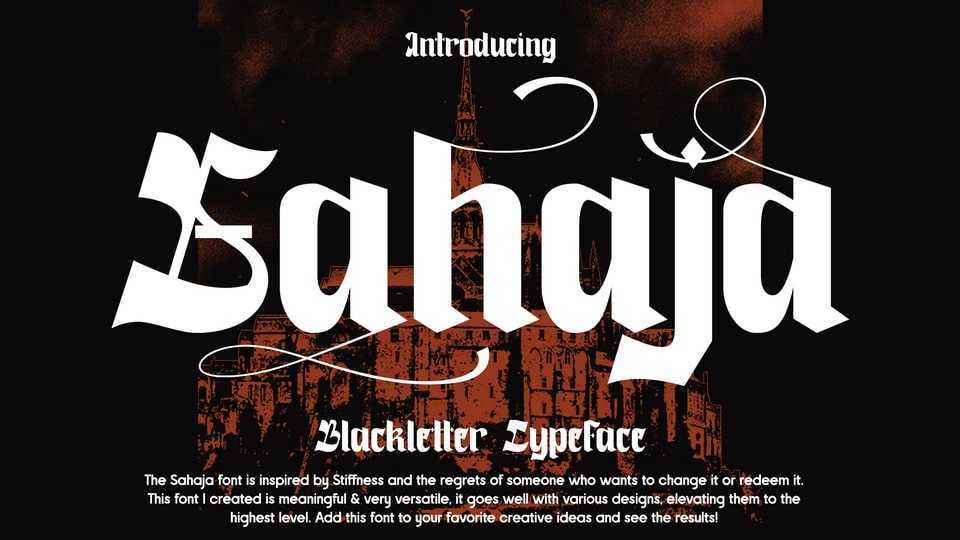
Download Sahaja font, a display typeface inspired by stiffness and the regrets of someone who wants to change it or redeem it. Sahaja font is meaningful and very versatile, it goes well with various designs, elevating them to the highest level
Designer: Dryy.type